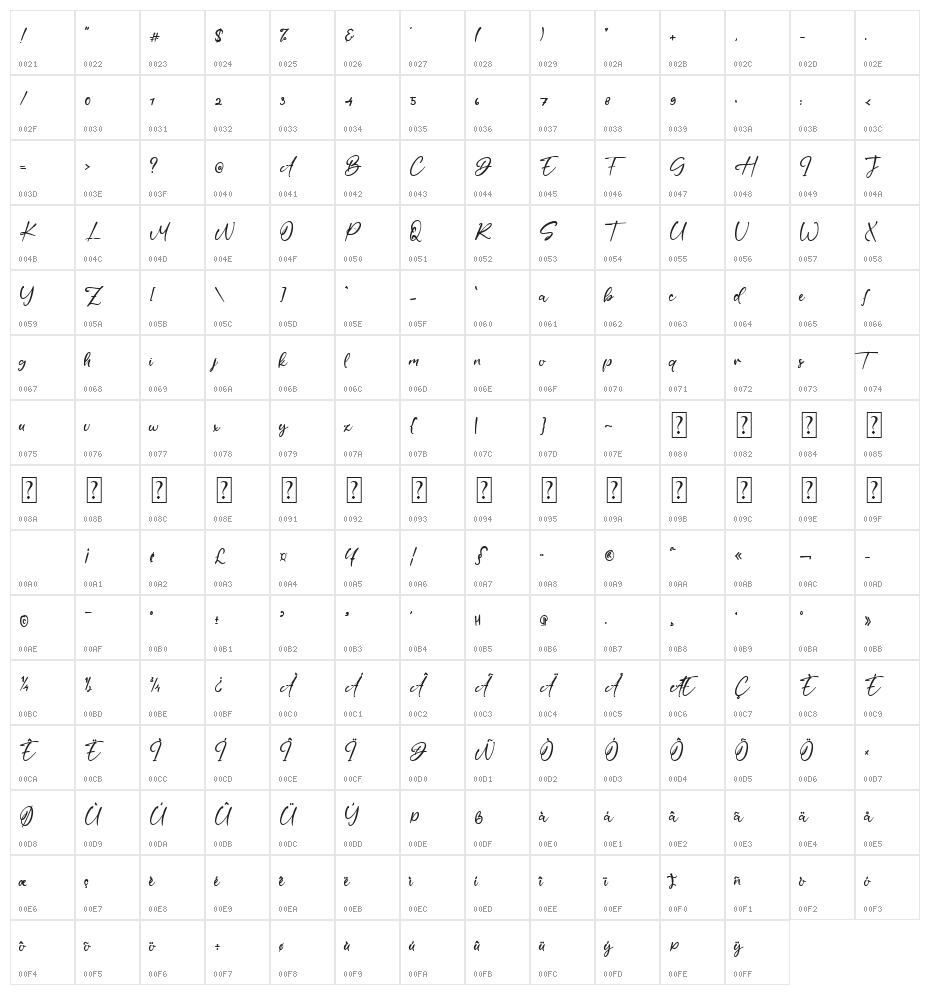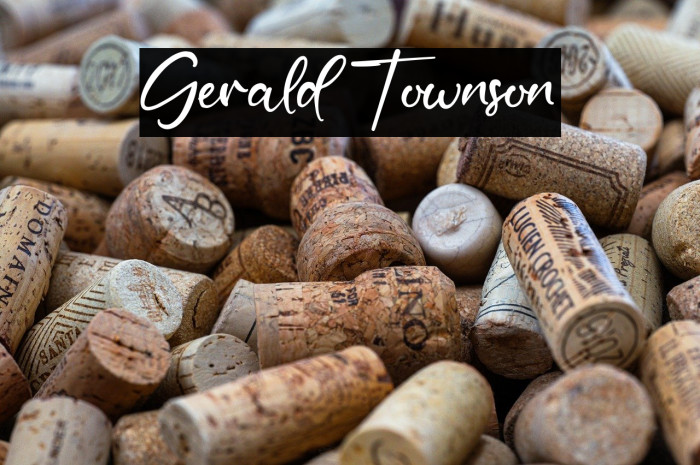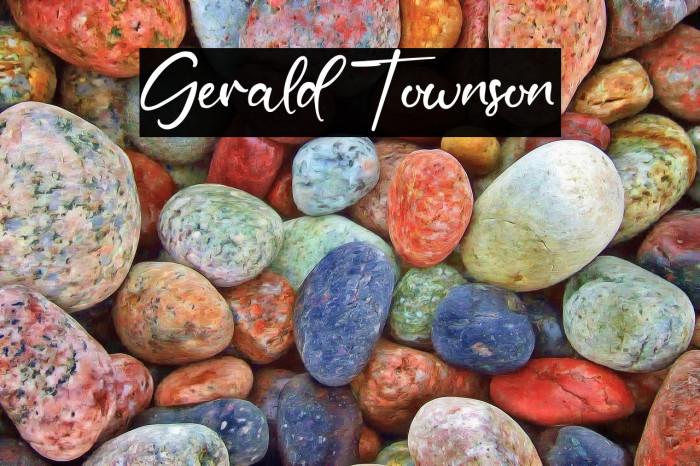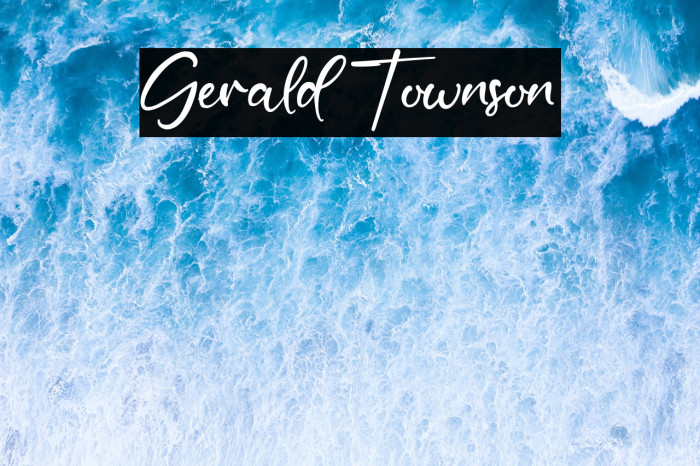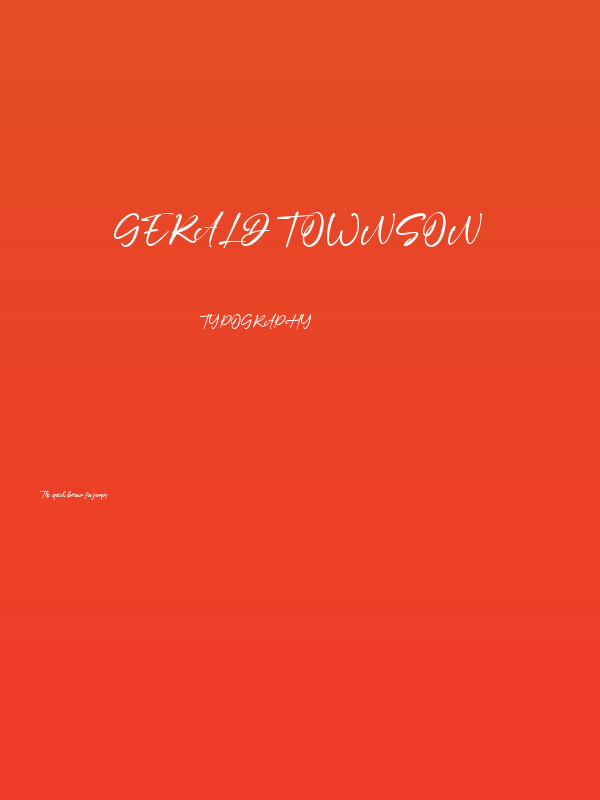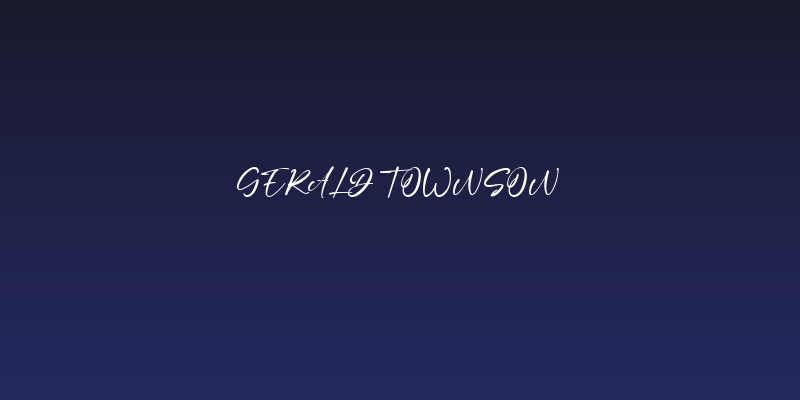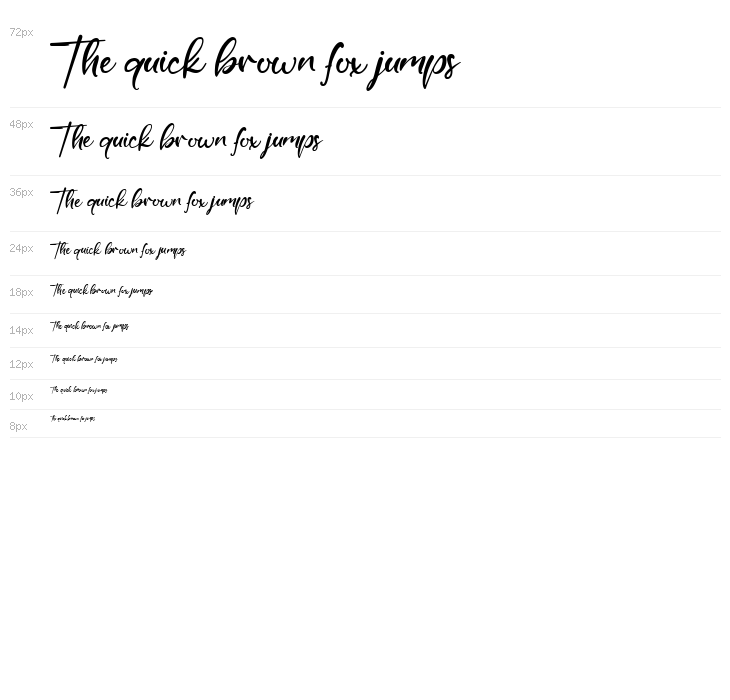
Gerald Townson Font
Gerald Townson Description
This font features a stylish and elegant script design with a handwritten feel. The uppercase letters are gracefully connected, showcasing fluid strokes and a sense of movement. The lowercase letters maintain a consistent flow, with some characters featuring unique flourishes that add to the overall charm. The numerals are clear and maintain the script style, while the special characters are creatively integrated, enhancing the font's decorative appeal. This font exudes sophistication and is perfect for projects that require a personal touch.